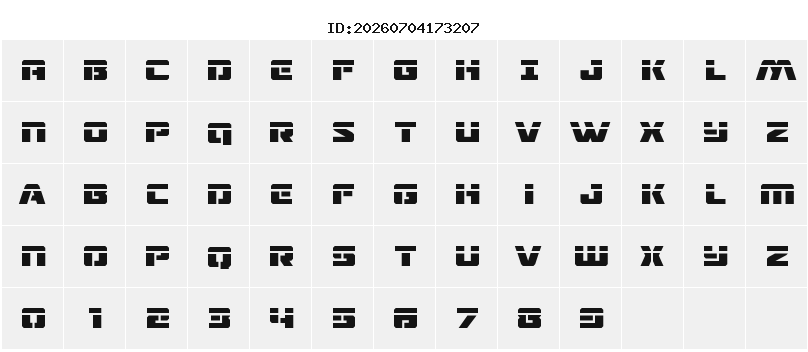
Drone Tracker Laser Preview
About Drone Tracker Laser.ttf
Drone Tracker Laser.ttf is a modern, elegant sans-serif font designed for ultimate readability and visual harmony. Perfect for branding, headlines, web design, and print materials.